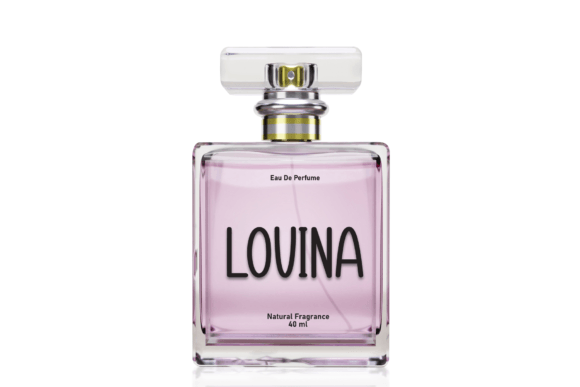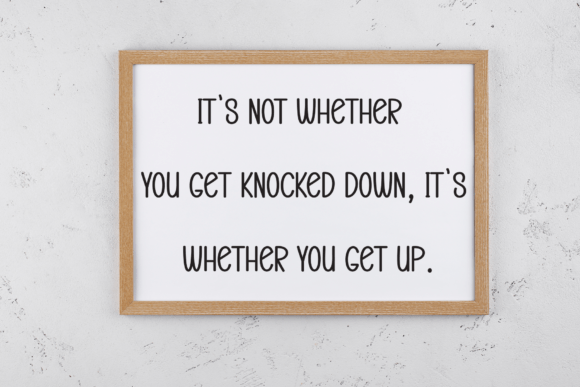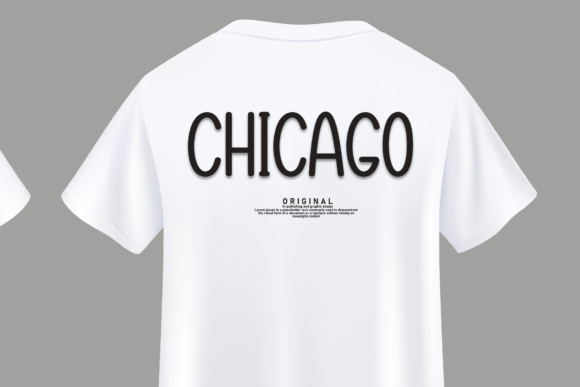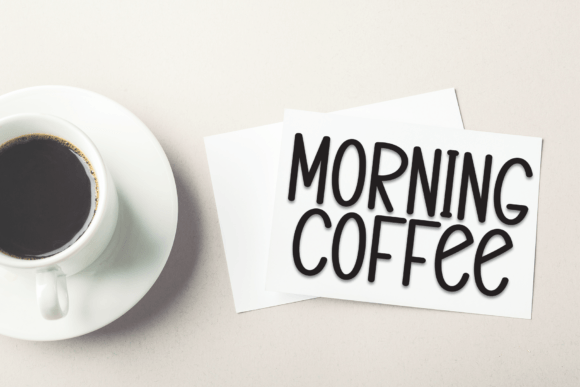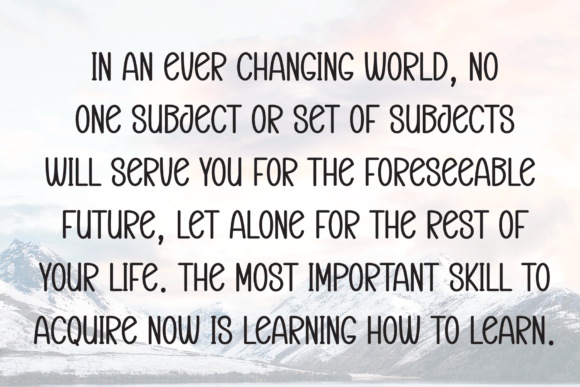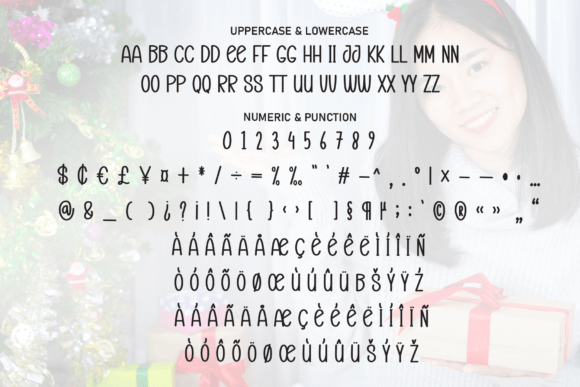
Introduction to Lucky Christmas Font
Lucky Christmas is a casual handwritten font that captures a relaxed and friendly vibe with its natural, flowing strokes.
Ideal for personal projects, social media, and invitations, it brings an effortless, charming touch to any design The fontโs easygoing style adds warmth and authenticity.